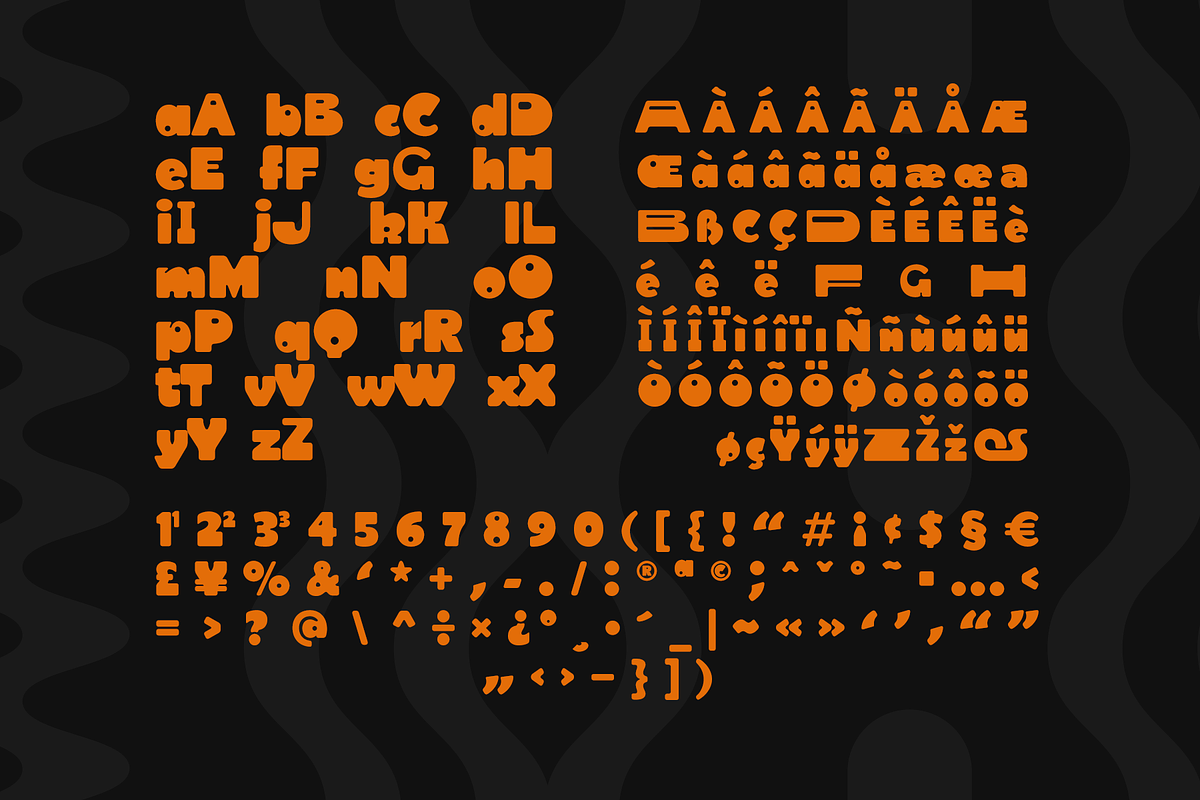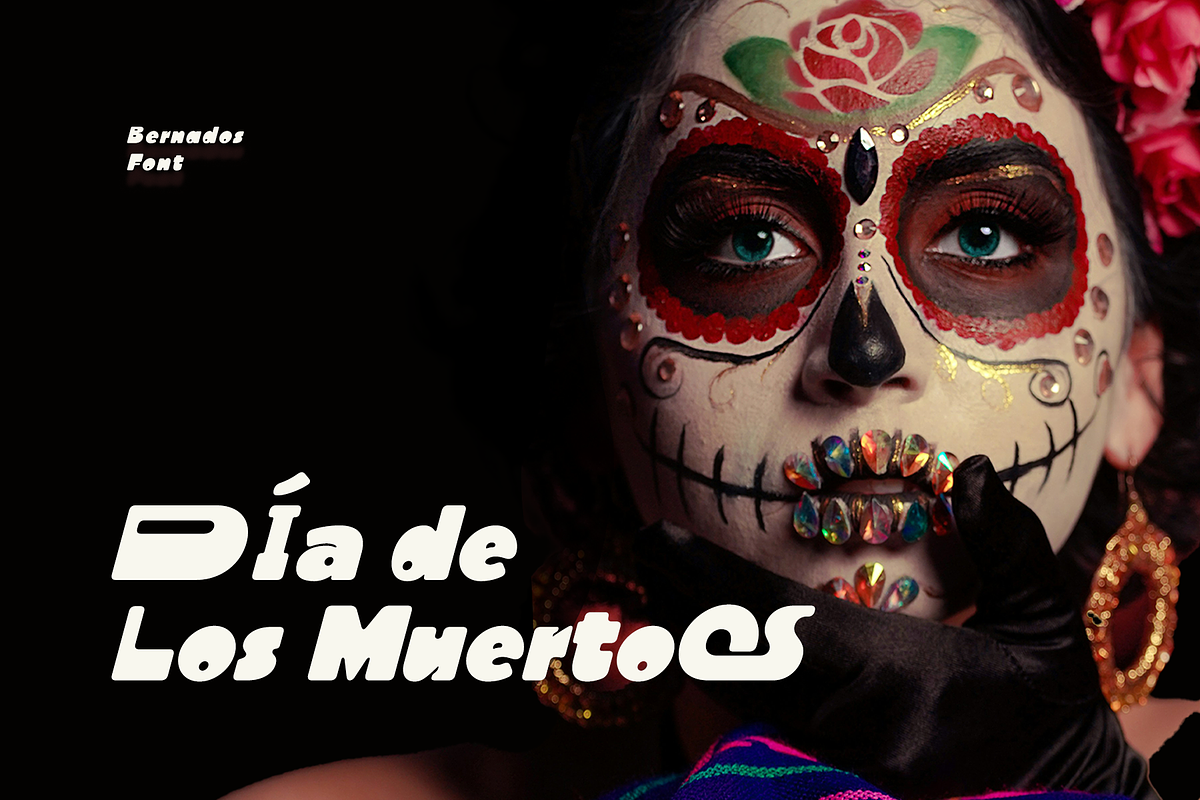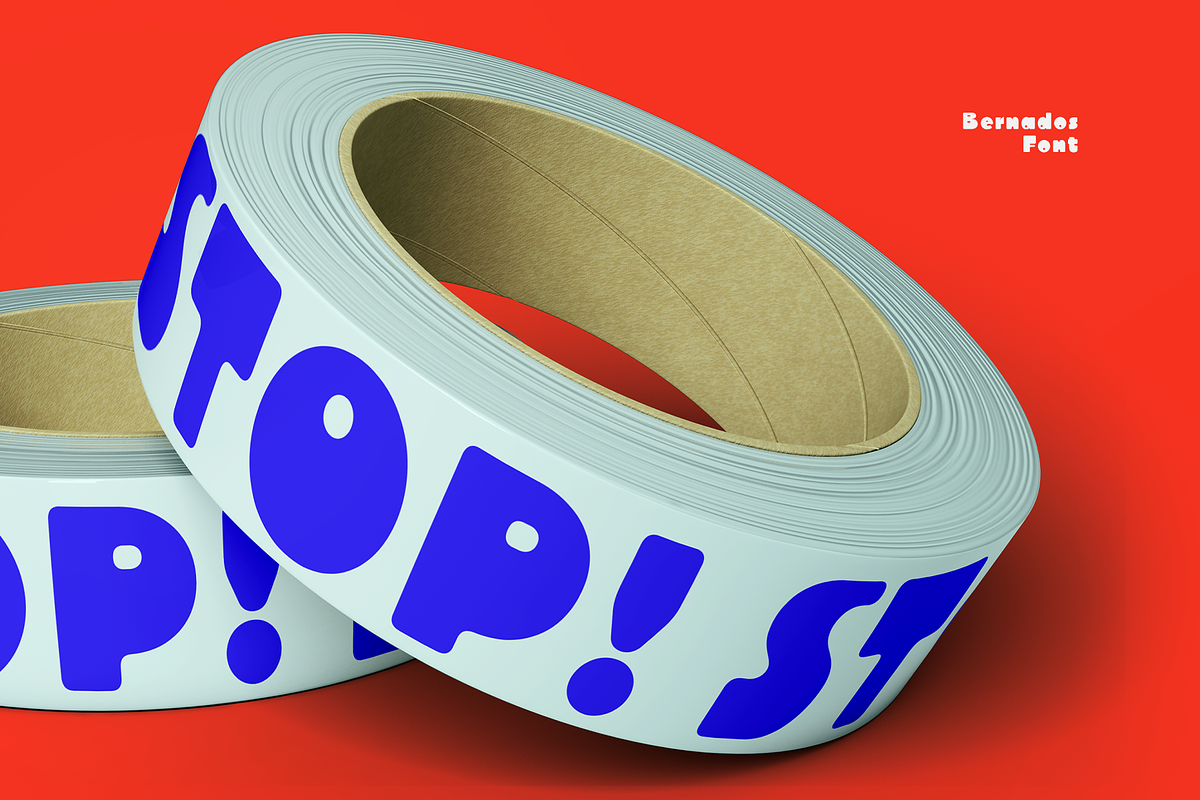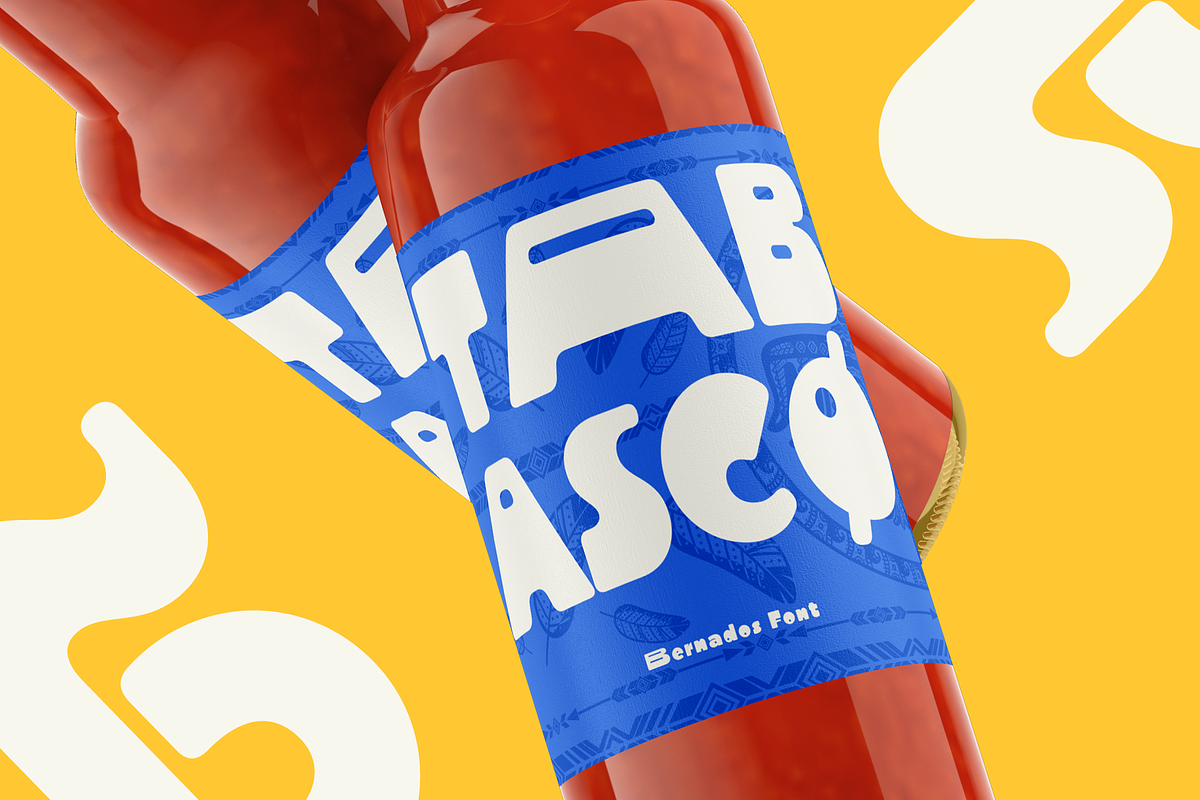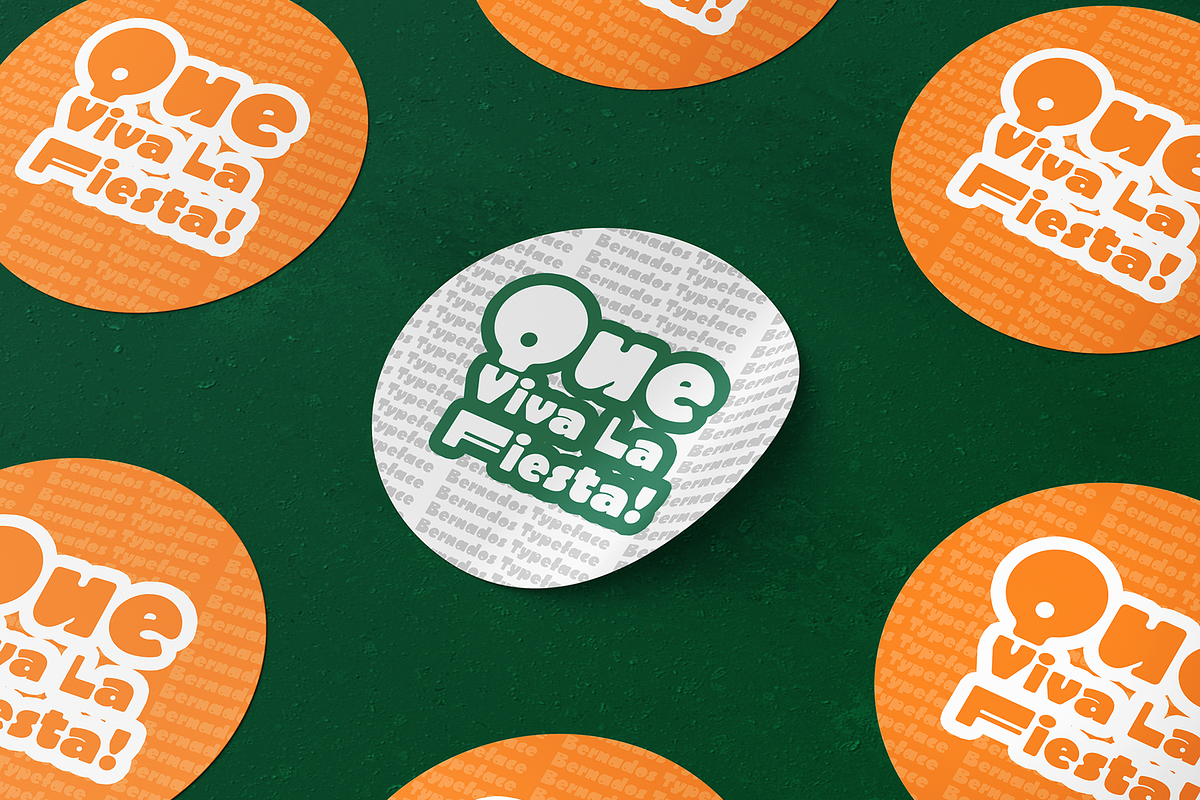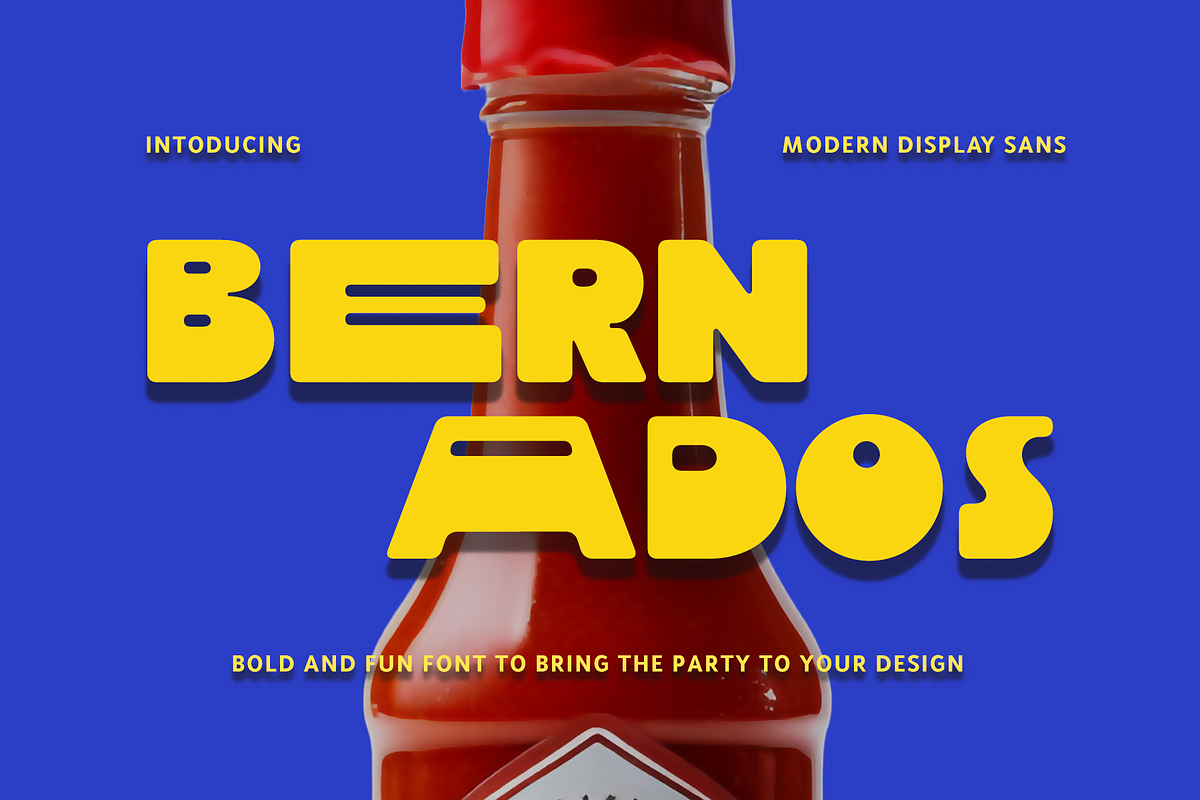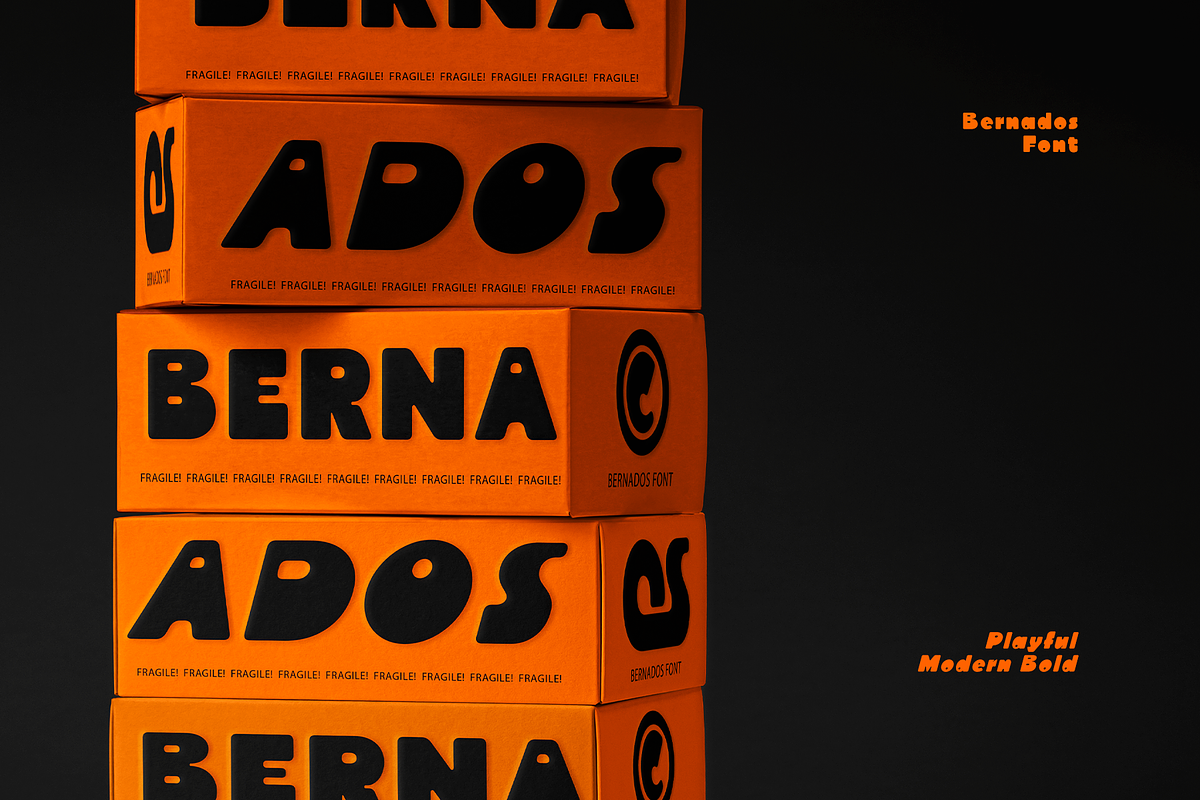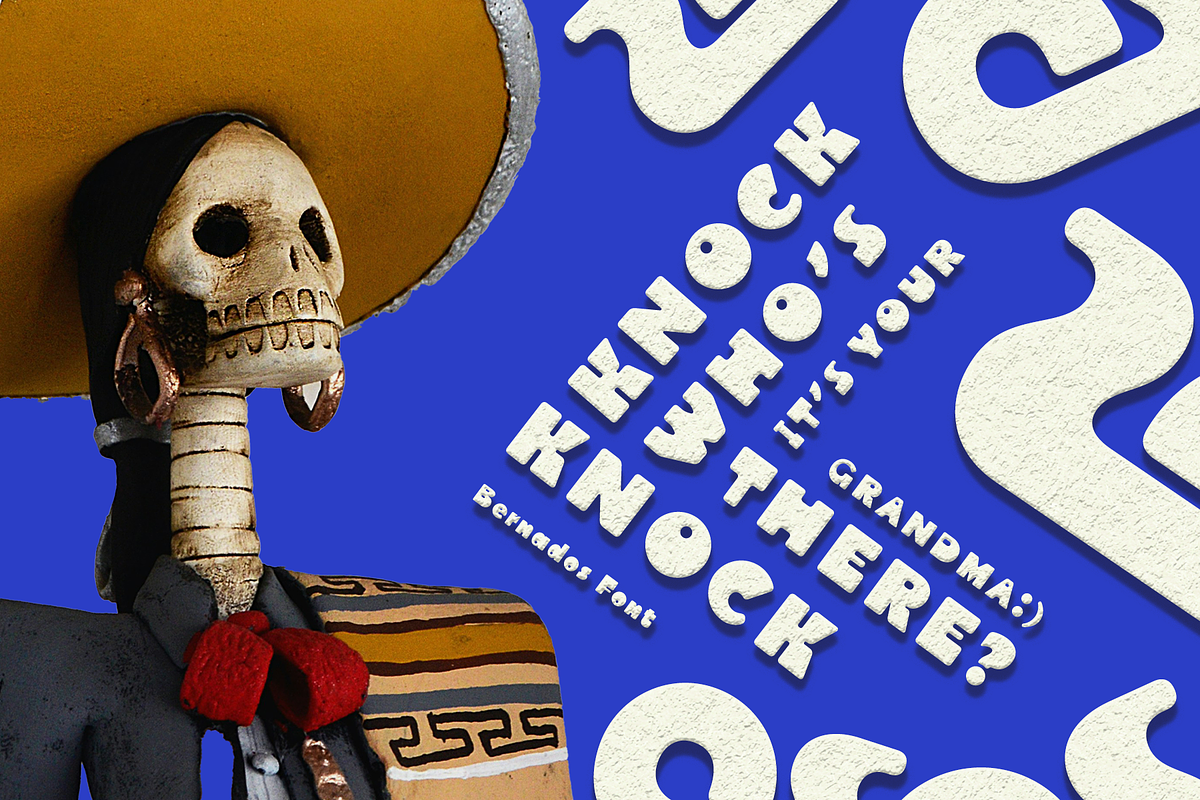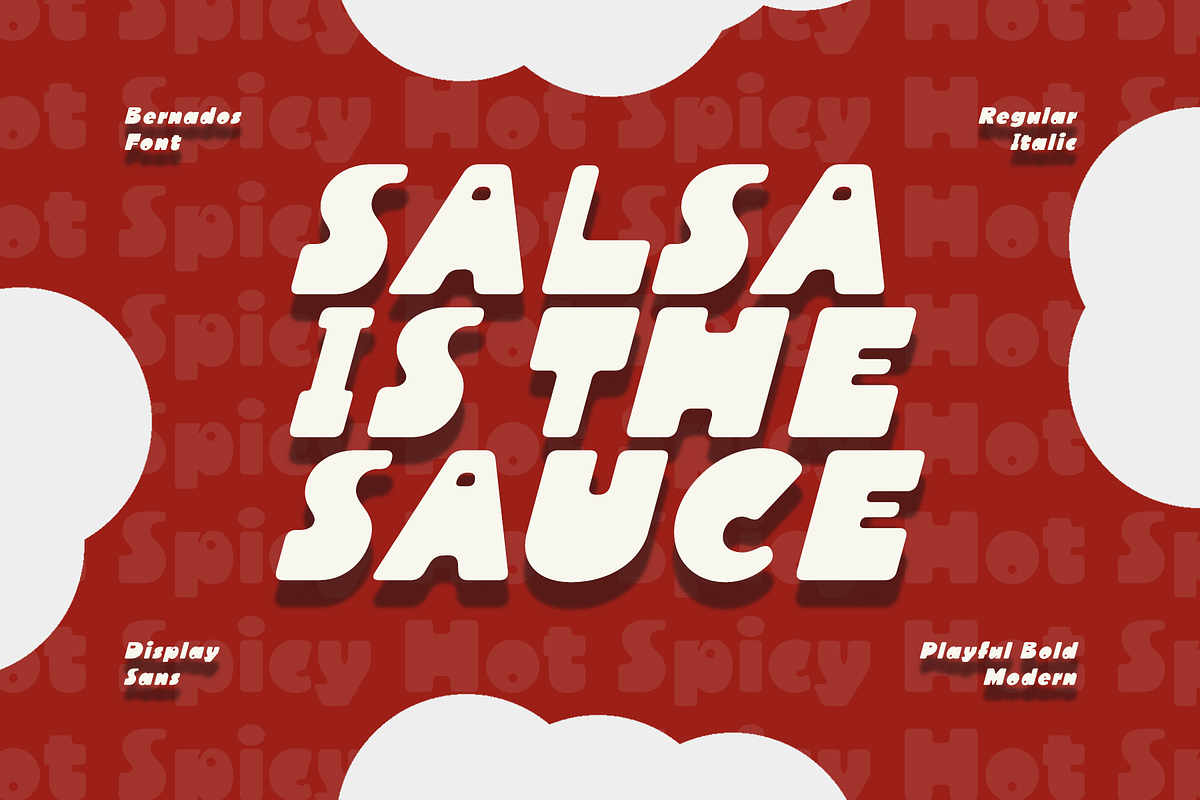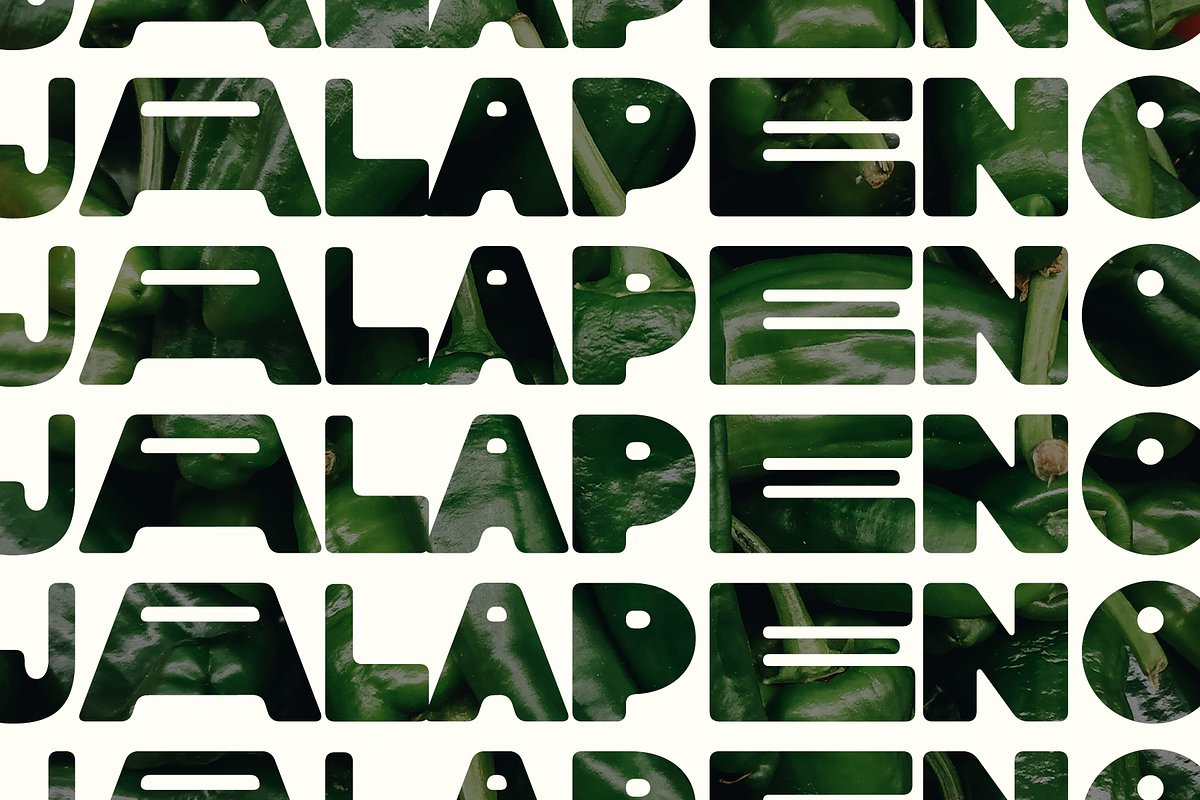
CF Bernados - Bold Display Sans
Bernados - is a display sans serif font that explodes with personality! Its super rich bold strokes create a visually striking presence, while the unique counter shapes add a touch of whimsy. Though bursting with personality, Bernados maintains a clean and contemporary aesthetic. This ensures your designs stay fresh and relevant, even with a heavy dose of playful fun. Bernados is more than just a pretty face. It empowers your creativity with its excellent legibility and versatility. Bernados is Ideal for Any design project that craves a dose of bold, playful fun. Bernados isn't just a font, it's a party on a page! Let your designs radiate joy and bring a smile to your audience's face.
- Latin Simple Character A-Z, a-z, 0-9, Punctuation, symbols, accent and diacritic
- Regular and Italic Styles
- Support multilingual language